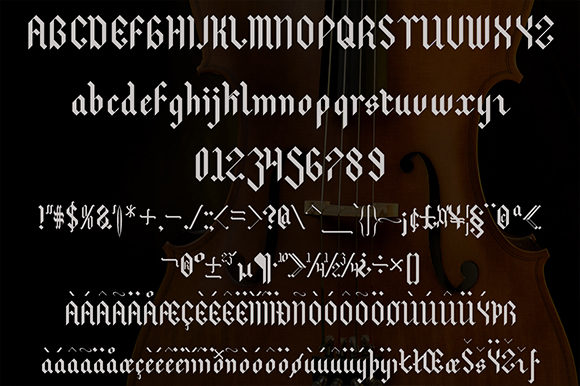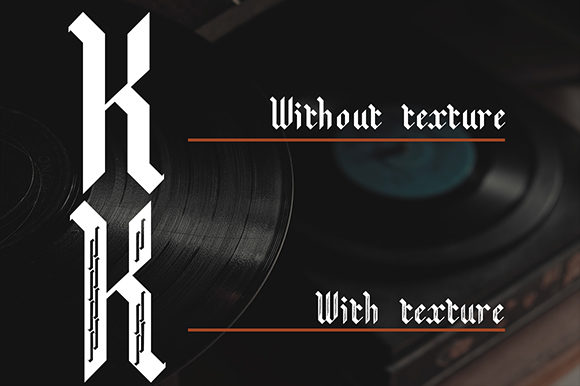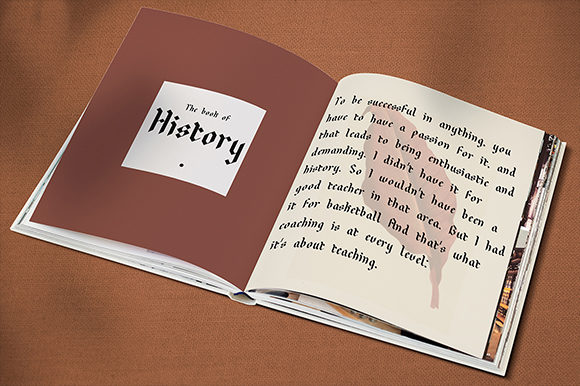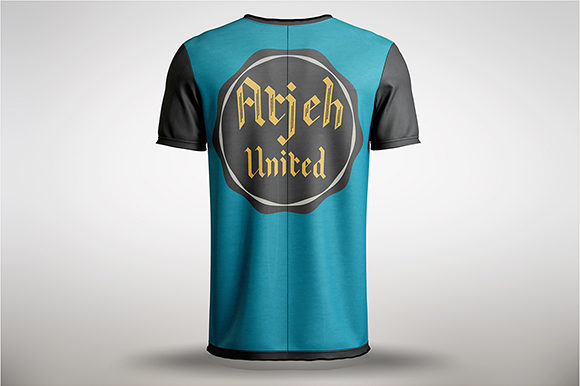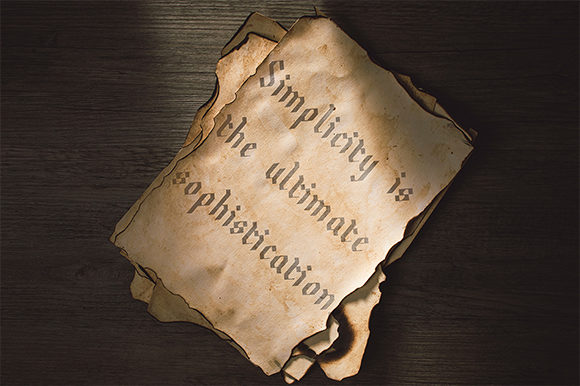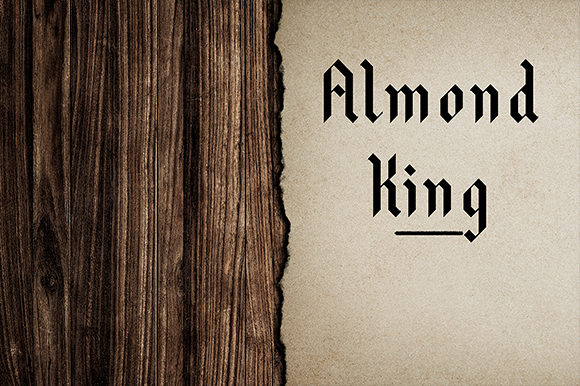
The Almond King Font: A Bold Spark for Your Design Projects
I’ll never forget the time I was working on a project and struggling to find the perfect font. My client wanted something bold, yet elegant, and I was determined to deliver. That’s when I stumbled upon the Almond King font. This classic blackletter font has a unique feel that instantly caught my attention, and I knew I had found the one. In this article, I’ll share my experience with the Almond King font, its features, and how to make the most of it in your design projects.
So, what do I love about the Almond King font? Here are a few things that make it stand out:
- ✨ Unique feel: The Almond King font has a distinctive blackletter style that’s both bold and elegant.
- ✅ Highly versatile: This font can be used in a variety of design projects, from invitations and posters to logos and branding.
- 💯 Excellent legibility: Despite its bold style, the Almond King font is surprisingly easy to read, even in smaller sizes.
Of course, no font is perfect, and the Almond King font has a few quirks:
- 🤔 Limited use in body text: While the Almond King font is great for headings and titles, it may not be the best choice for body text due to its bold style.
- ⚠️ Some letter combinations: As with any font, some letter combinations may not look perfect, but overall, the Almond King font is well-designed and easy to work with.
The Backstory of Almond King
The Almond King font was designed with inspiration from traditional blackletter fonts. Its creator aimed to craft a font that’s both bold and elegant, perfect for adding a touch of sophistication to any design project. While the exact story behind the font’s creation is unclear, its unique feel and versatility have made it a popular choice among designers.
| Q: What type of font is Almond King? | A: Almond King is a classic blackletter font. |
| Q: Is Almond King suitable for body text? | A: While it’s possible to use Almond King for body text, it’s recommended for headings and titles due to its bold style. |
Overall, the Almond King font is a bold and elegant addition to any design project. Its unique feel and versatility make it perfect for a wide range of applications, from formal invitations to bold headlines. With its OpenType features and glyphs, you can add even more creativity to your designs. Give Almond King a try and see how it can elevate your designs!